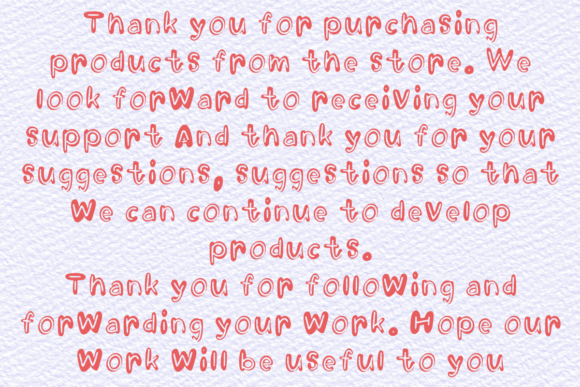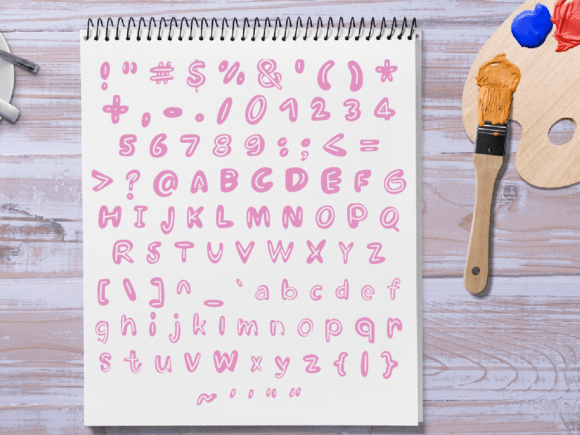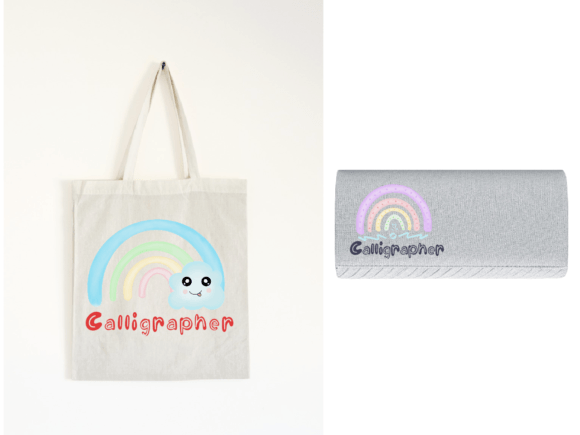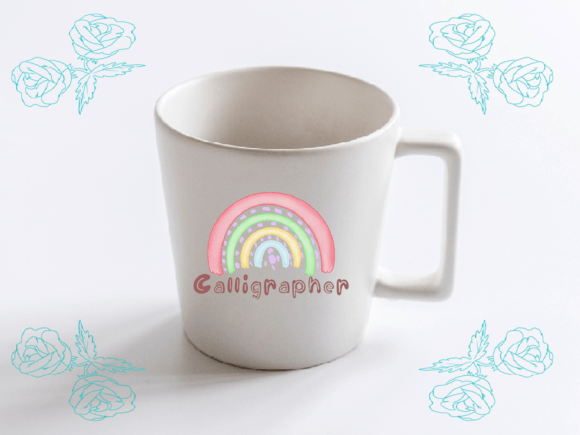
Introduction to Podgy Font
Podgy is a fun and whimsical handwritten font.
A little bit quirky, this font looks incredibly adept in a wide variety of contexts .